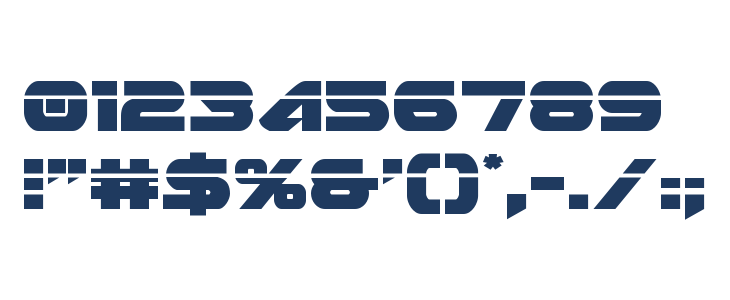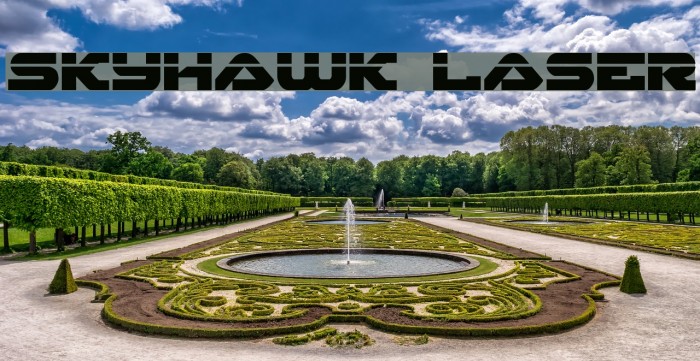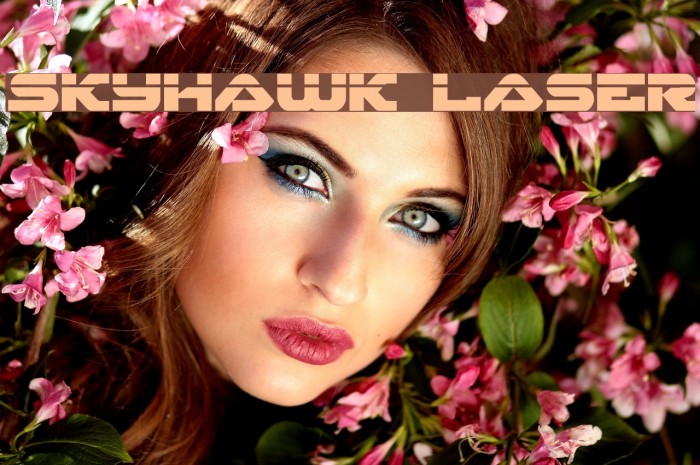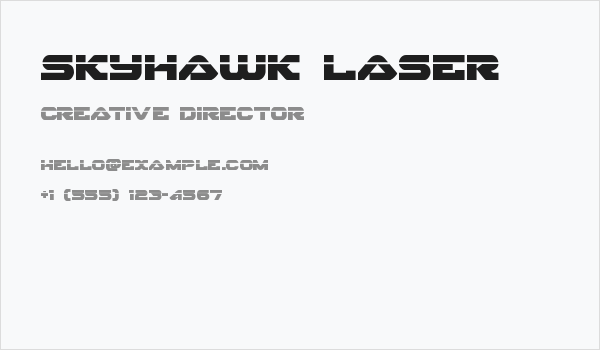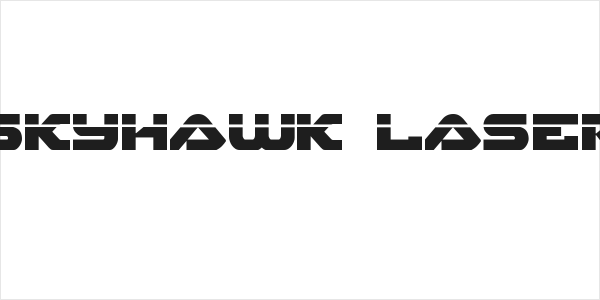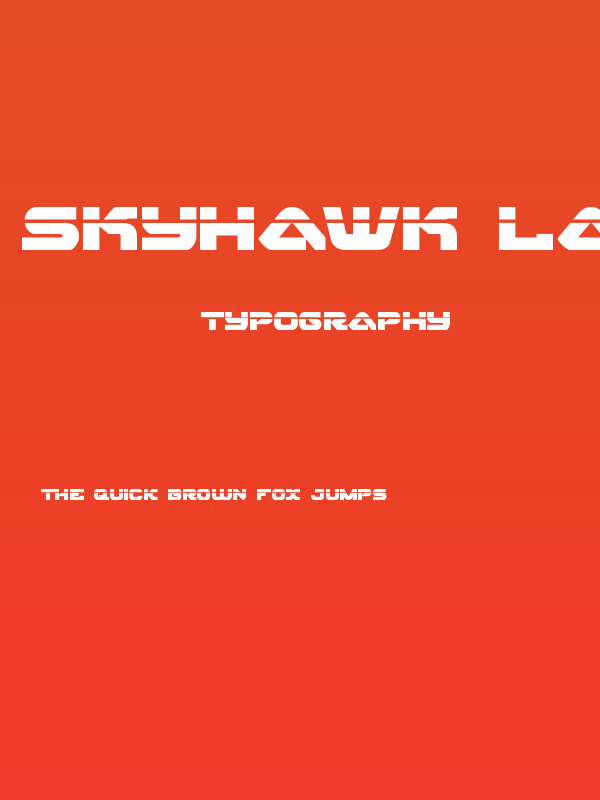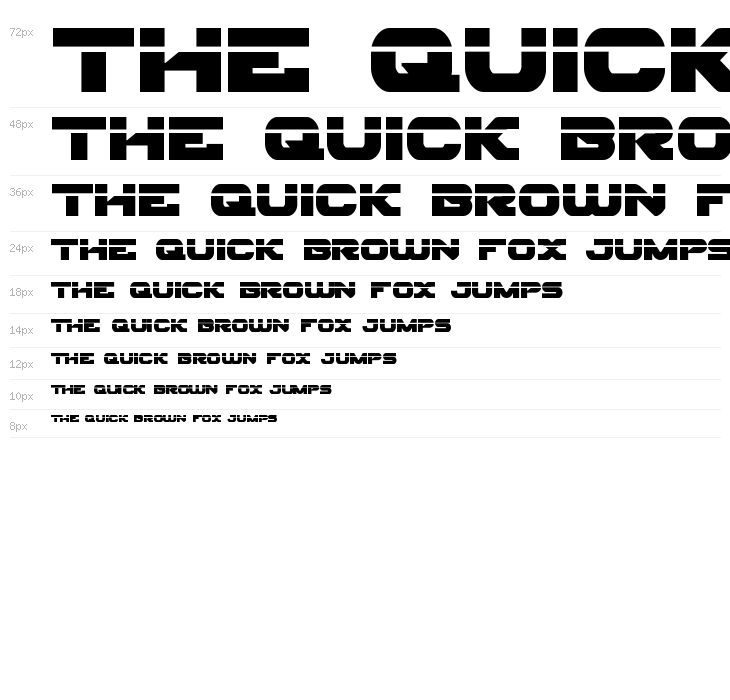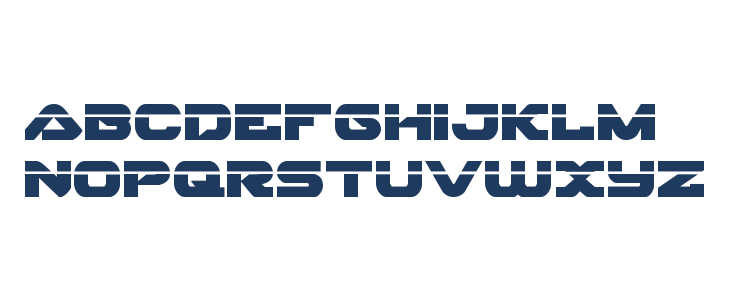
Skyhawk Laser Font
Skyhawk Laser Description
This font features a bold, futuristic design with geometric shapes and sharp angles. The characters are constructed with a stencil-like appearance, creating a sense of movement and modernity. The uppercase and lowercase letters maintain a consistent style, with distinct cutouts that add to the font's dynamic look. Numbers and special characters follow the same design principles, ensuring uniformity across all elements. The font's bold weight and unique style make it ideal for projects that require a strong visual impact.
| Proposed Projects | Ideal for sci-fi themed designs, technology branding, video game titles, and futuristic posters. |